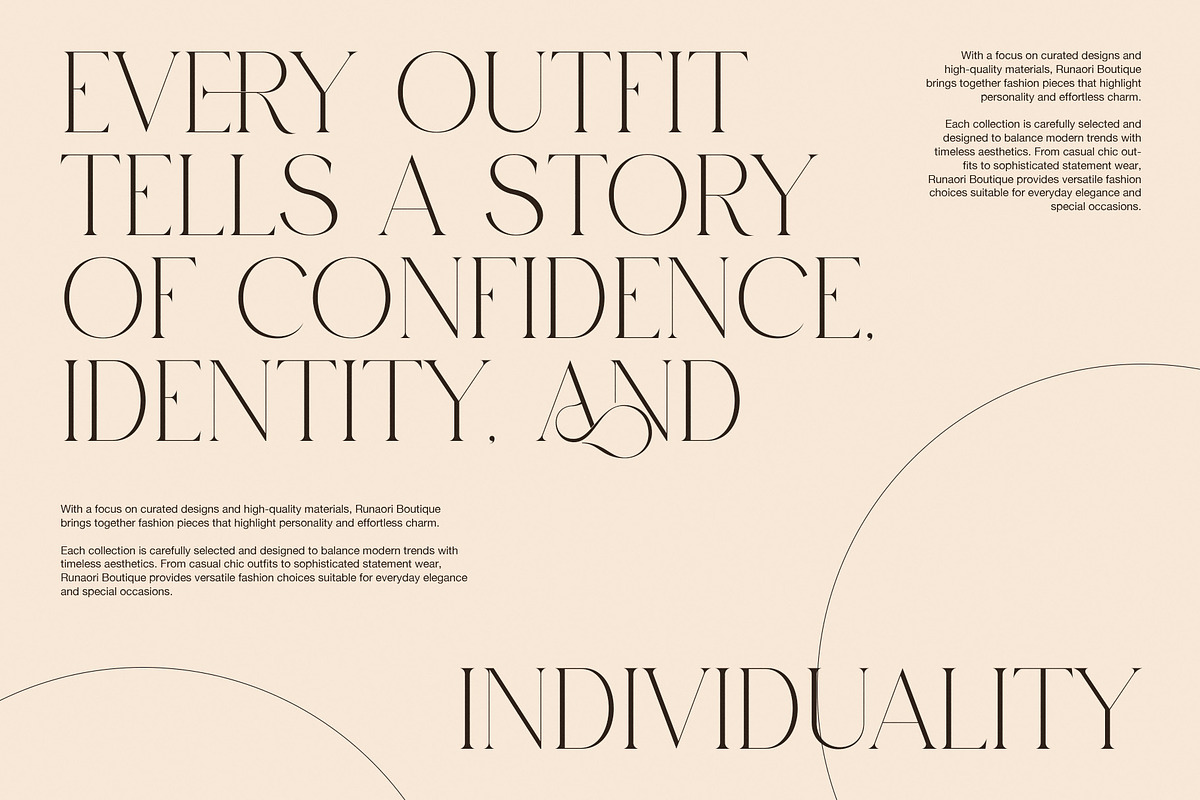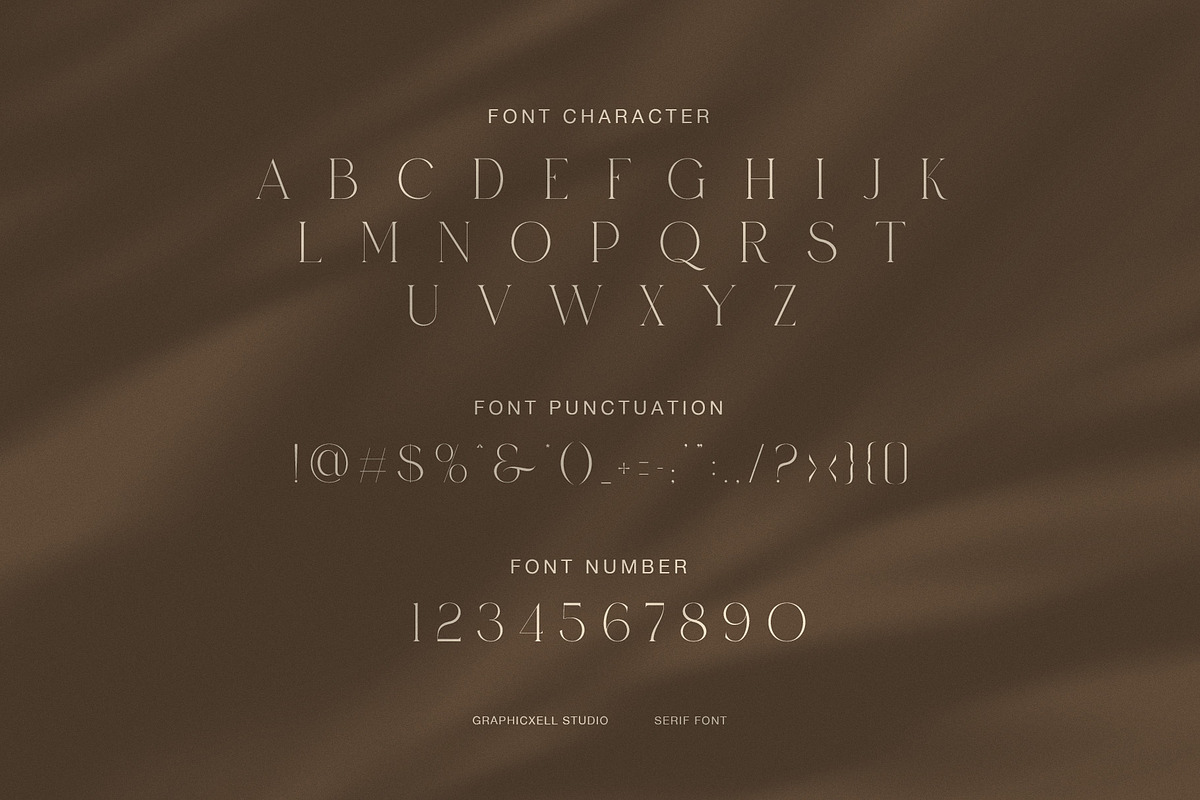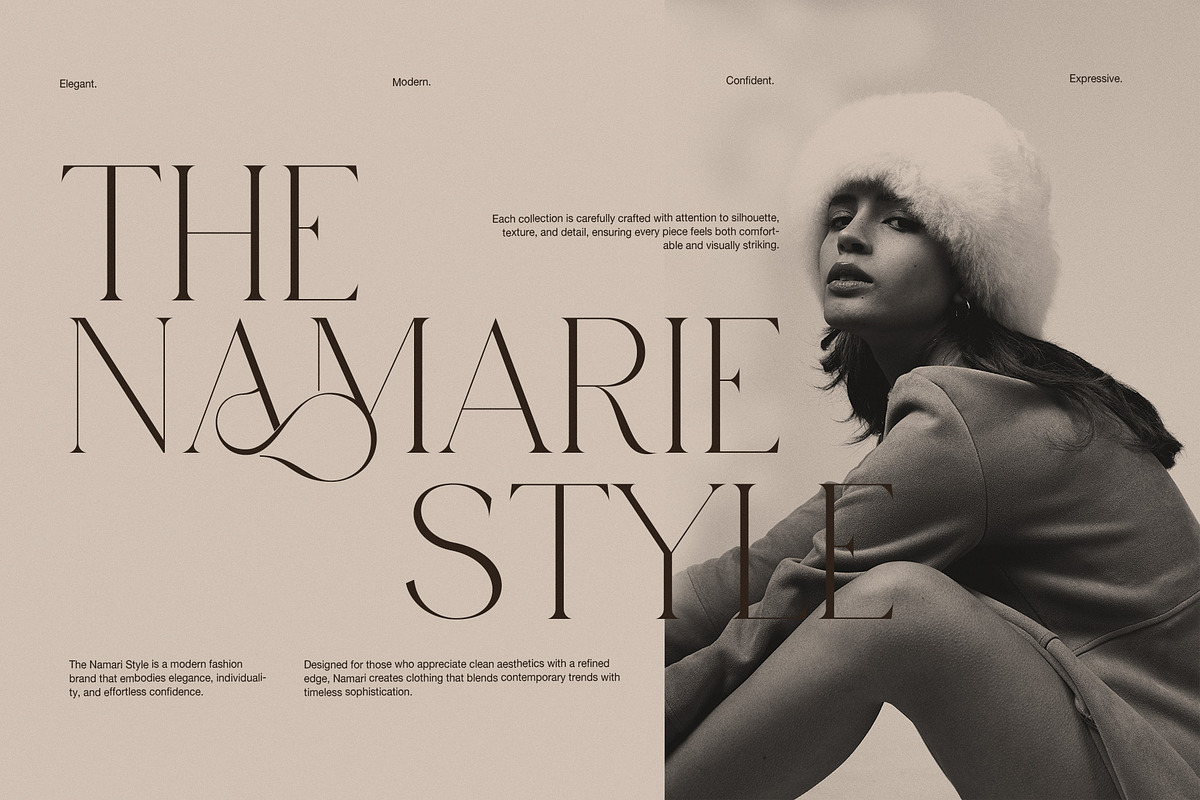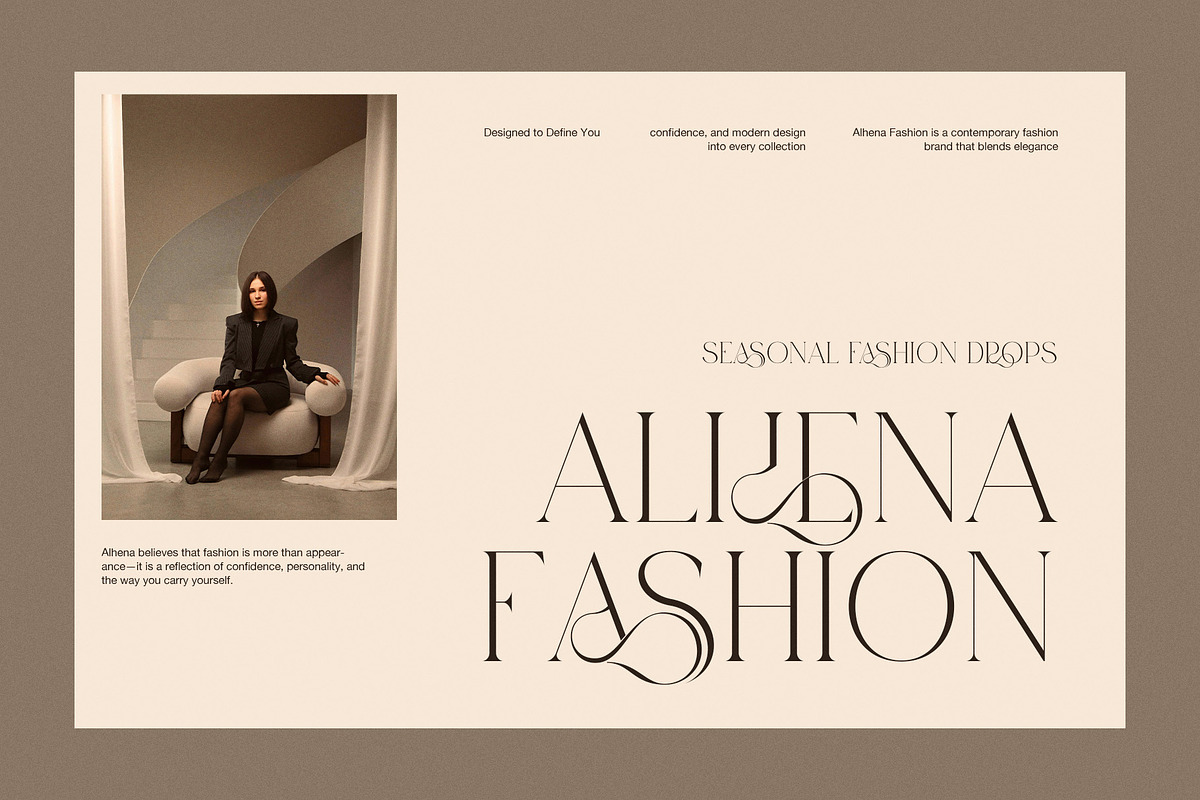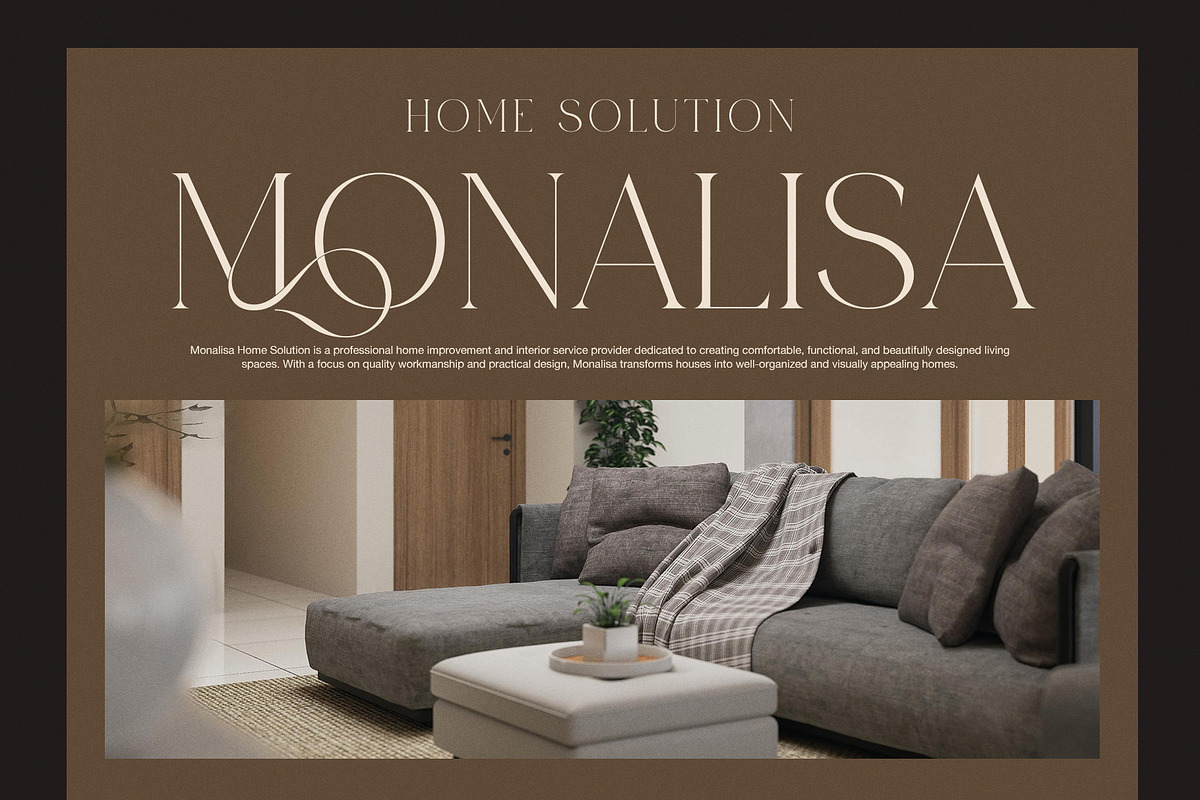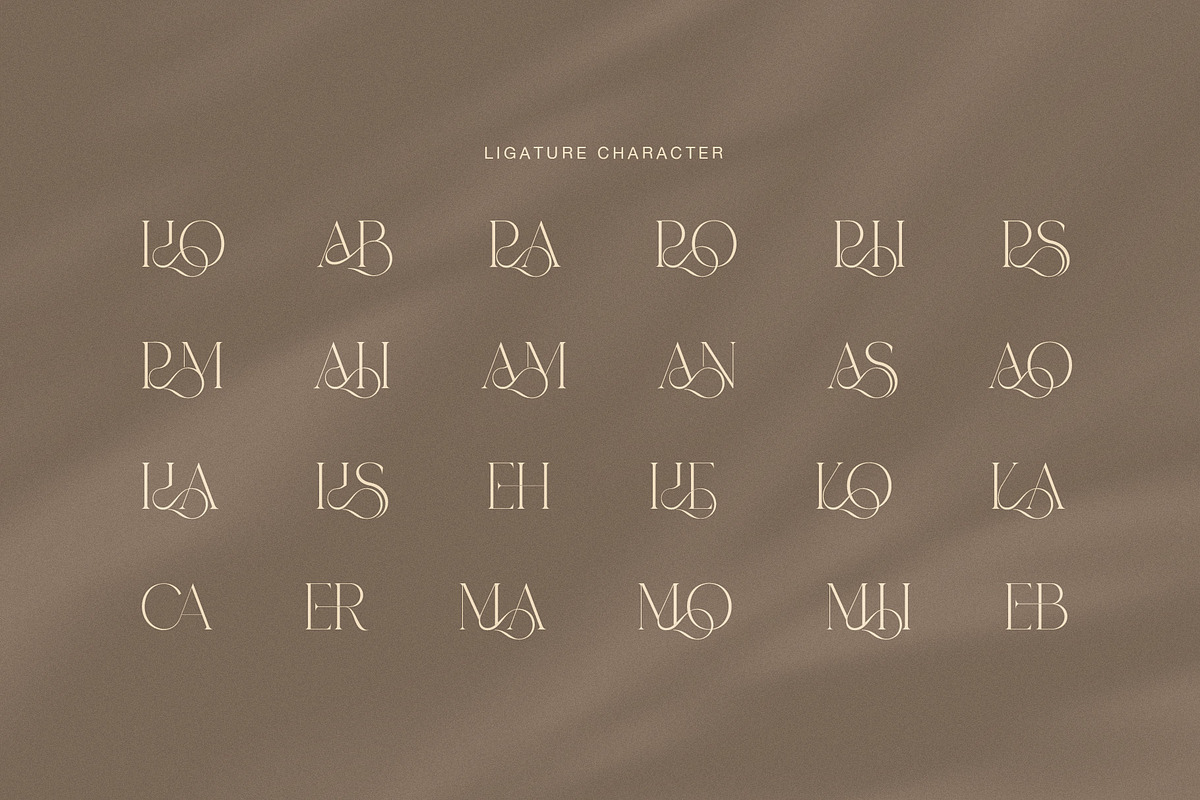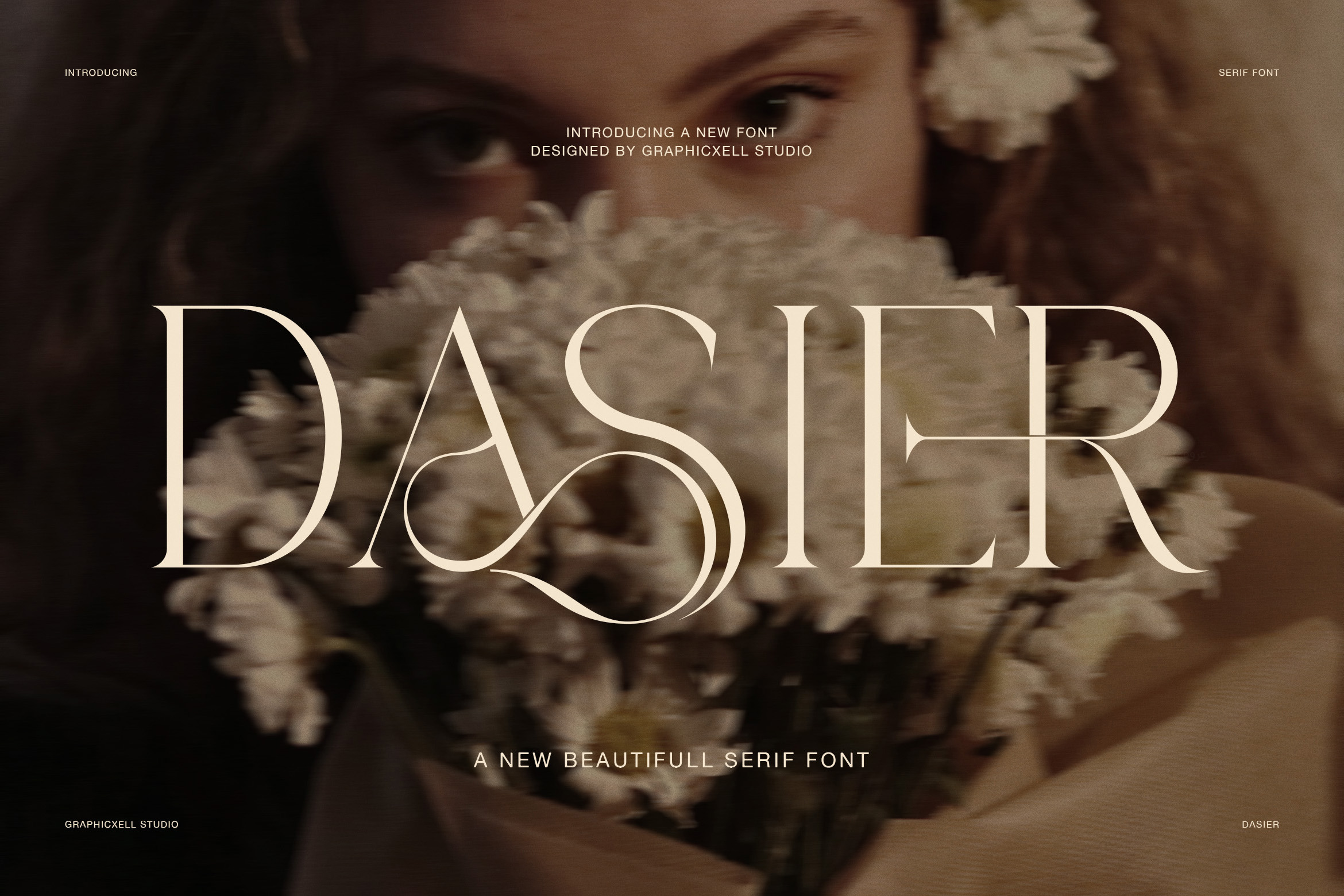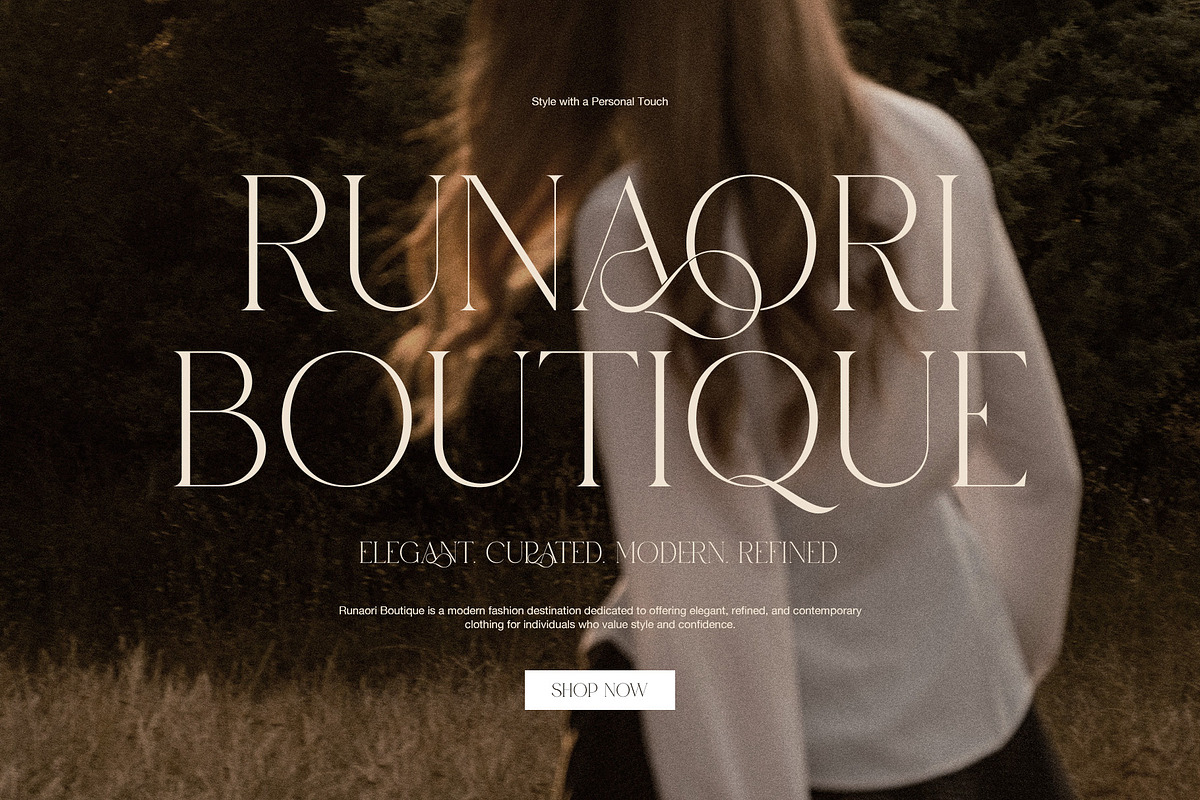
Dasier Elegant Fashion Serif Font
Dasier Elegant Fashion Serif Font is a refined typeface designed for modern luxury branding and editorial work. It blends soft elegance with strong contrast shapes, so it creates a clean and stylish look.
It is inspired by high fashion magazines and boutique branding. Moreover, the font brings a romantic mood, so it fits beauty, fashion, and lifestyle projects. In addition, it works well for logos, headlines, and product design.
Because of its smooth curves and sharp details, Dasier gives a strong visual voice. Furthermore, it includes stylish ligatures and alternates, so designers can create unique letter combinations with ease.
Therefore, it is perfect for wedding branding, editorial layouts, social media posts, and luxury packaging. As a result, your design will look more premium and professional across all platforms. It is suitable for branding studios, fashion labels, and creative agencies worldwide. It supports consistent identity systems across print, web, and social media content.
Elegant serif style
High contrast strokes
Ligatures and alternates
Fashion editorial look
Luxury branding use
Clean readability
Modern romantic style
Logo and title design
Print and digital use
Versatile layout support
Moreover, Dasier is easy to combine with simple sans serif fonts. Because of this, it helps create strong design balance. In addition, it stays clear in both large and small sizes, so it is very flexible for designers.
Finally, Dasier Elegant Fashion Serif Font delivers timeless beauty with a modern touch. Therefore, it is a strong choice for designers who want elegance, emotion, and clarity in one font family.